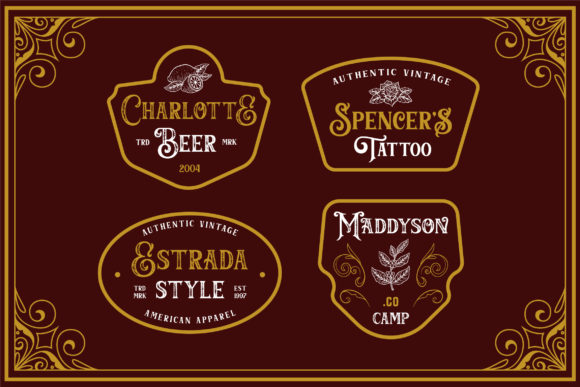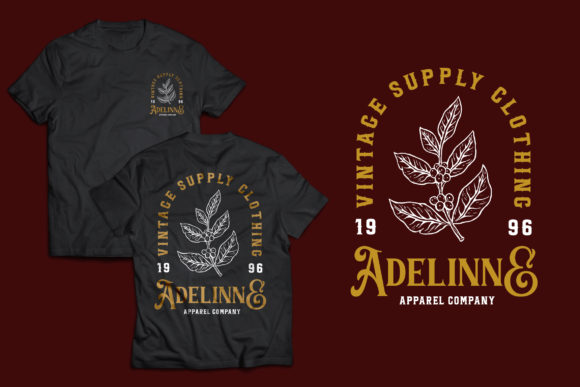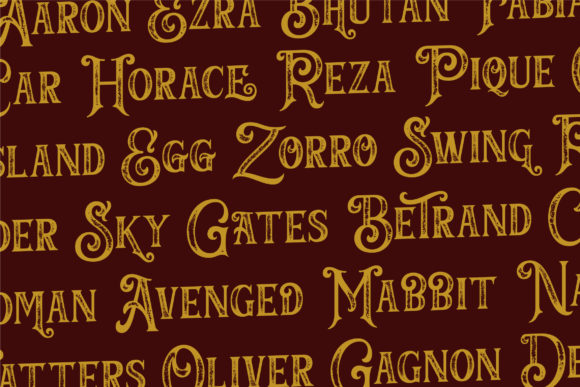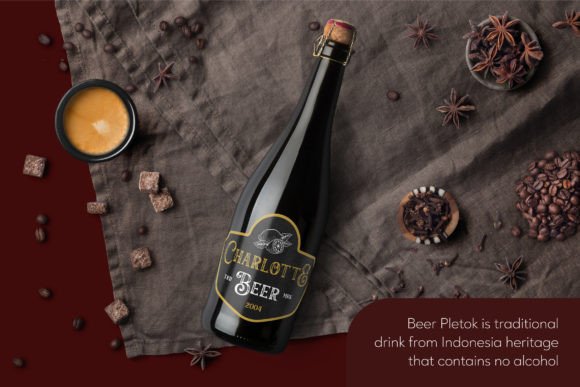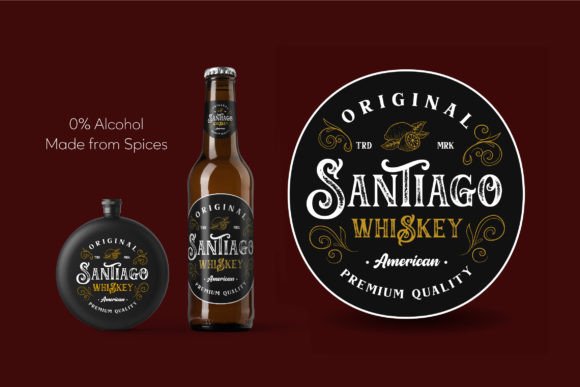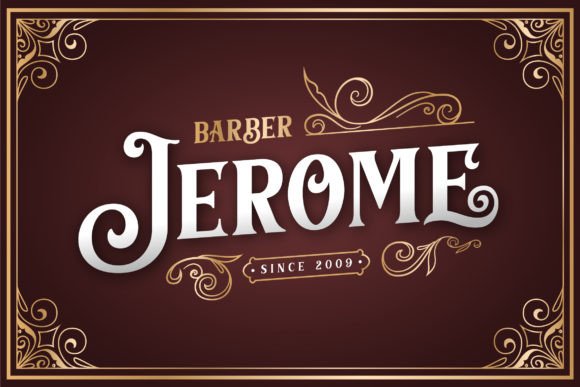
The Perfect Blend of Retro Charm and Modern Flair
Imagine you’re browsing through a vintage flea market, surrounded by the nostalgic vibes of the past. You stumble upon an old typewriter, and as you run your fingers over its keys, you feel an instant connection to the creatives who used it to bring their ideas to life. This is the moment when inspiration strikes, and the perfect font comes to mind – the Barthez Font.
This bold and retro display font is more than just a design element; it’s a statement piece that adds a strong feel to any project. Whether you’re working on a branding campaign, a graphic novel, or a poster for a music festival, the Barthez Font is sure to turn your design into a true showstopper.
As a designer, you know the importance of choosing the right font to convey your message and evoke the desired emotions. That’s where the Barthez Font comes in – a valuable addition to your design toolkit that will help you create truly unforgettable projects.
Barthez Font Key Features
- Unique Characteristics: Barthez Font features a unique blend of classic and modern elements, with intricate details and elegant lines.
Designer Review: Barthez Font
Overall, I was quite impressed with the Barthez Font. Here are some aspects that really stood out to me:
- ✨ The font’s playful and elegant feel makes it perfect for creative projects, such as logo designs, posters, and book covers.
- ✨ The ligatures and swashes add a touch of sophistication and make the font feel more luxurious.
- ✨ The high-quality vector graphics ensure that the font looks crisp and clear, even at larger sizes.
However, there are some limitations that I would like to mention:
- ⚠️ The font may not be suitable for body text, as it can be quite ornate and may be difficult to read at smaller sizes.
- ⚠️ The font lacks italic and bold variations, which can limit its versatility in certain design scenarios.
Overall, I think the Barthez Font is a beautiful and unique addition to any designer’s toolkit. While it may have some limitations, its elegant and playful feel makes it perfect for creative projects that require a touch of sophistication.
Tip: Use Barthez Font to add a touch of elegance to your headings and titles.
Tip: Use Barthez Font to create a professional-looking logo or typography-based design.
Tip: Use Barthez Font to add a touch of sophistication to your headings and titles.
Barthez Font is ideal for:
- Creating elegant headings and titles.
- Designing professional-looking logos and branding materials.
- Adding a touch of sophistication to presentations and documents.
Alternatives to Barthez Font for Designers
Playfair Display is an elegant, luxurious serif font ideal for use in headings and titles. It’s perfect for creating a high-end feel in fashion, luxury, and high-end product designs. When to use: Magazine covers, high-end branding, luxury product labels.
Comparison to Barthez Font: While both fonts are elegant and sophisticated, Playfair Display is more luxurious and ornate, making it a better choice for high-end designs. Barthez Font is more versatile and can be used in a wider range of applications.
Didot is a classic, elegant serif font that exudes sophistication and refinement. It’s perfect for use in headings, titles, and body text in designs that require a touch of elegance. When to use: High-end branding, luxury product labels, formal invitations.
Comparison to Barthez Font: Didot is more classical and timeless, while Barthez Font is more modern and versatile. Didot is a better choice for designs that require a traditional, elegant feel.